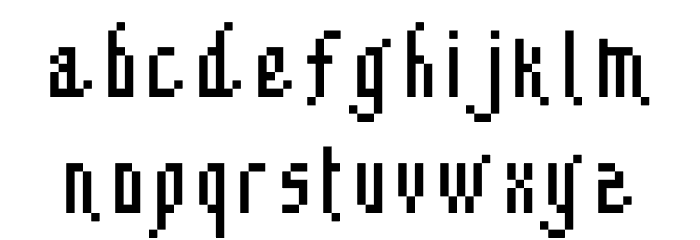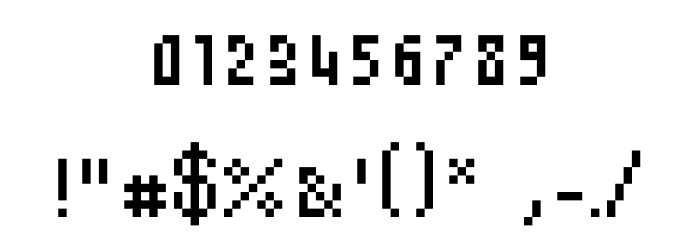
pixiecre Font
This font features a pixelated, retro style reminiscent of early digital displays and video games. The characters are constructed with a blocky, grid-like structure, giving it a distinctly digital and nostalgic feel. The uppercase and lowercase letters maintain a consistent height, with slight variations in width that add a unique charm. The numerals and special characters follow the same pixelated design, ensuring uniformity across all glyphs. This font's simplicity and clarity make it highly legible, even at smaller sizes, while its distinctive style adds a playful and vintage touch.
A pixelated, retro-style font with a blocky, digital appearance.
- Proposed Projects: Ideal for retro-themed designs, video game graphics, digital art projects, and nostalgic branding.
- Overall Style: Vintage
- Use Case: Headlines, Logos, Digital Art